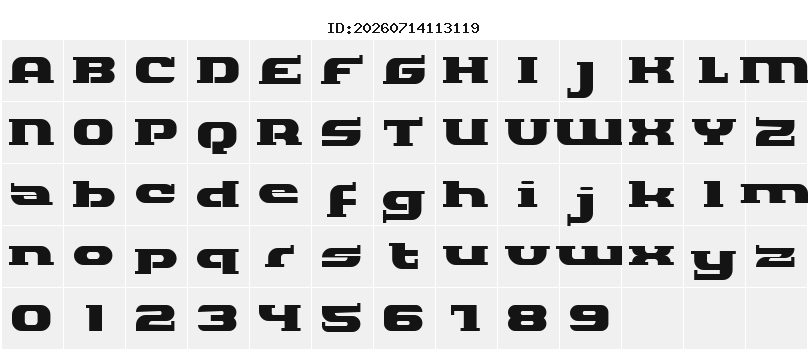
Helga Preview
• Font Name: Helga
• Font Style: Broad
• Font ID: Macromedia Fontographer 4.1 Helga Broad
• Full Font Name: Helga Broad
• PostScript Name: HelgaBroad
About Helga.ttf
Helga.ttf is a modern, elegant sans-serif font designed for ultimate readability and visual harmony. Perfect for branding, headlines, web design, and print materials.